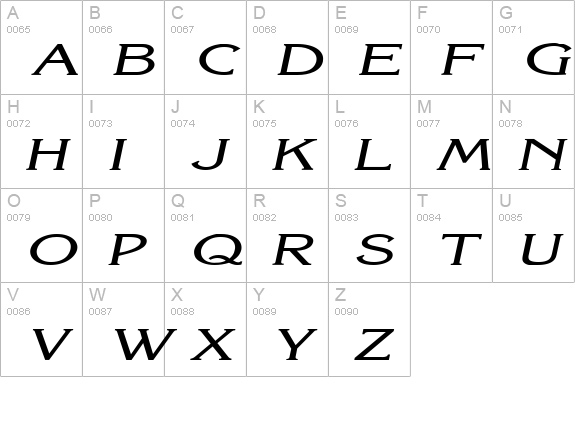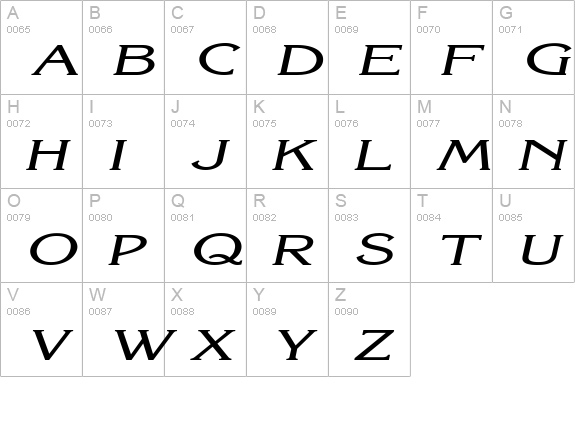
Keira Extended Italic Font Details
Keira Extended Italic is a distinctive, extended-width, italic variant in the Keira typeface family \xE2\x80\x94 well suited to design and typography projects.
Keira Extended Italic is a stunning and elegant font that effortlessly captures attention with its graceful curves and delicate strokes. This font exudes sophistication and refinement, making it the perfect choice for any design project that requires a touch of class. With its extended and italicized form, Keira Extended Italic adds an extra level of uniqueness and style to your typography. It strikes the perfect balance between being eye-catching and legible, making it suitable for a wide range of applications, such as branding, invitations, headlines, and more. One of the most remarkable aspects of Keira Extended Italic is that it is freely available to download at FontsMarket.com. This means that designers and creatives can easily access and utilize this exquisite font without any restrictions or limitations. Whether you're a professional designer or a hobbyist, Keira Extended Italic provides you with the freedom to create stunning and captivating designs effortlessly. The versatility of Keira Extended Italic is truly exceptional. It can effortlessly adapt to various design styles, from modern and minimalist to vintage and ornate. Its smooth and flowing letterforms add a touch of elegance to any project, instantly elevating the overall aesthetic. Featuring a wide range of characters, including uppercase and lowercase letters, numerals, punctuation marks, and special symbols, Keira Extended Italic provides all the essential tools you need to create visually appealing and cohesive designs. Additionally, its extensive language support ensures that you can effortlessly communicate your message across different languages and cultures. In conclusion, Keira Extended Italic is a visually stunning font that combines elegance with versatility. Its freely available download at FontsMarket.com allows designers and creatives to unleash their creativity without any limitations. Whether you're designing a logo, creating invitations, or crafting a headline, Keira Extended Italic is sure to make a lasting impression with its timeless beauty and effortless charm.